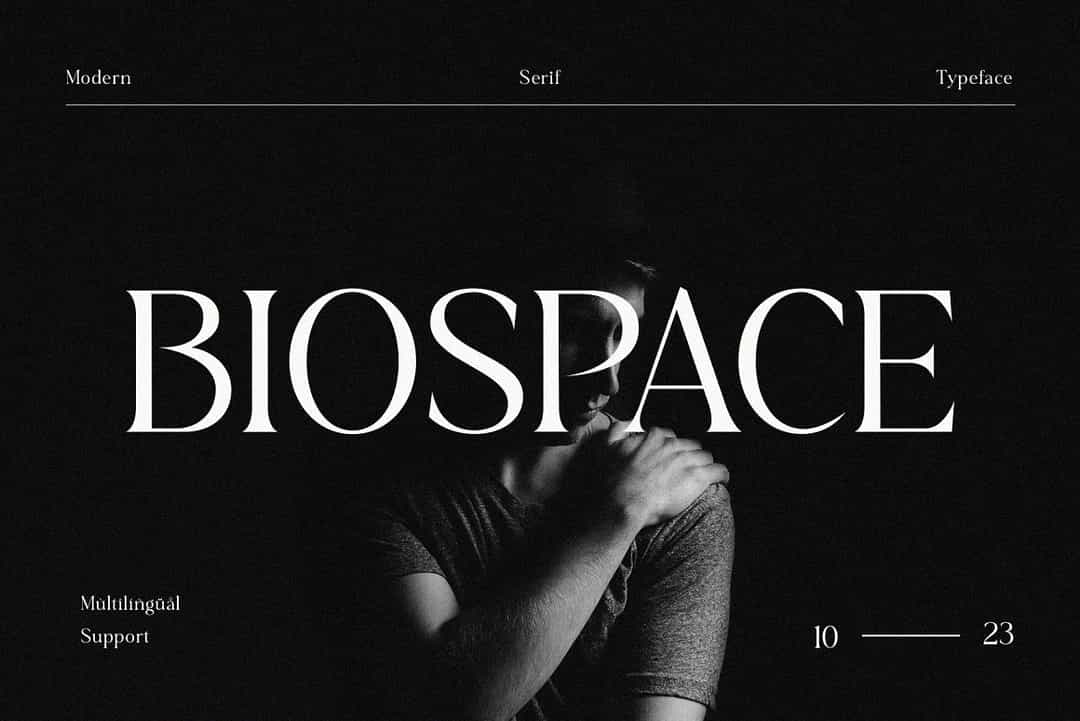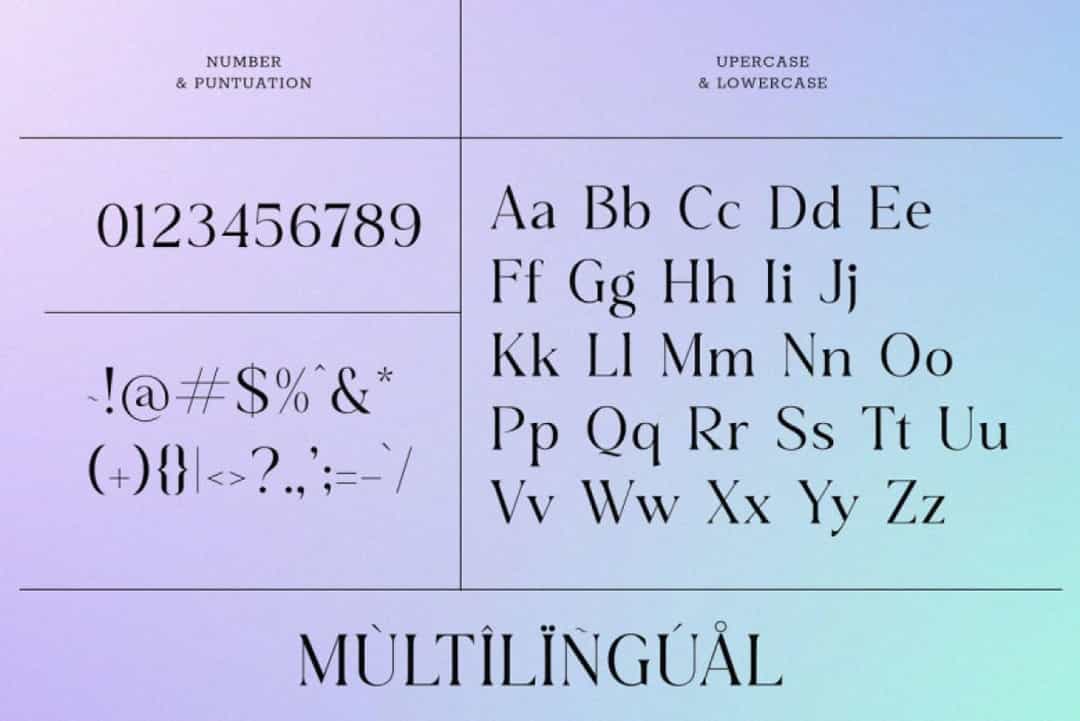
Biospace highlights letters with an elegant serif that stands out in any font family, supporting lowercase letters as well as uppercase characters for multilingual use. With its clean lines and neat lettering style, Biospace gives its letters an eye-catching and contemporary appearance.